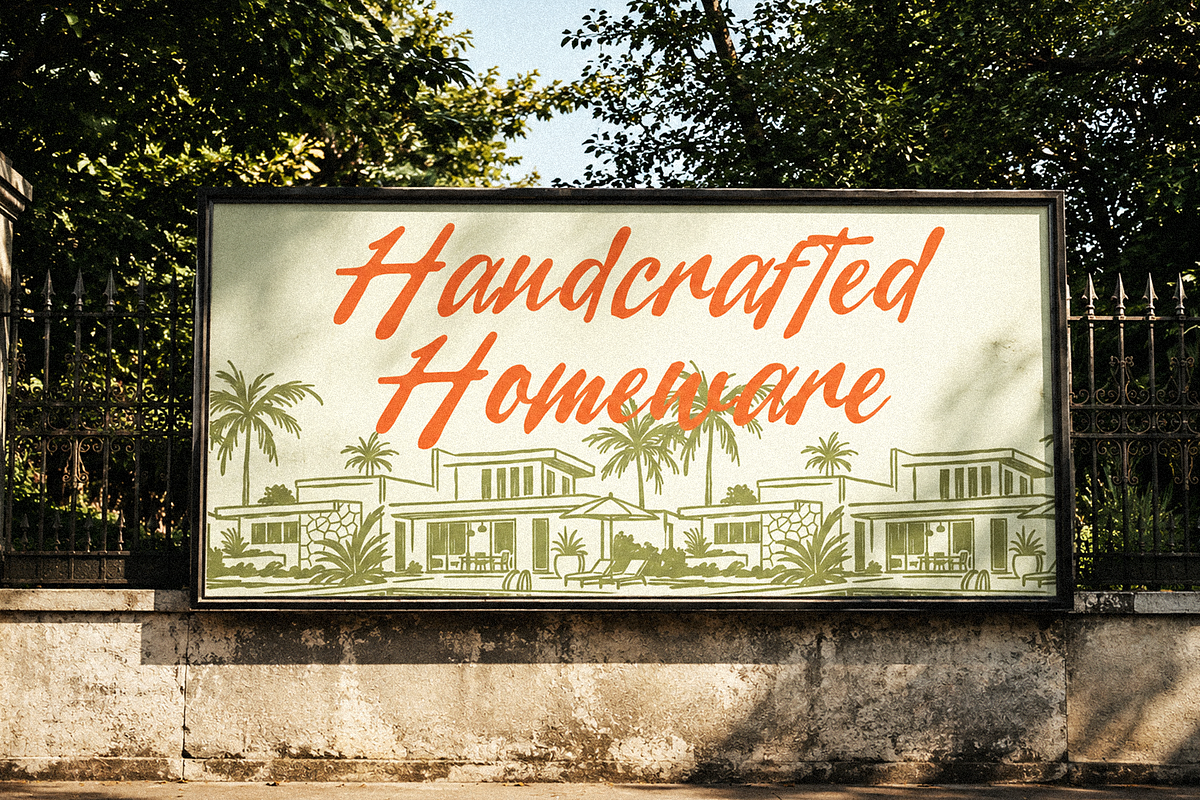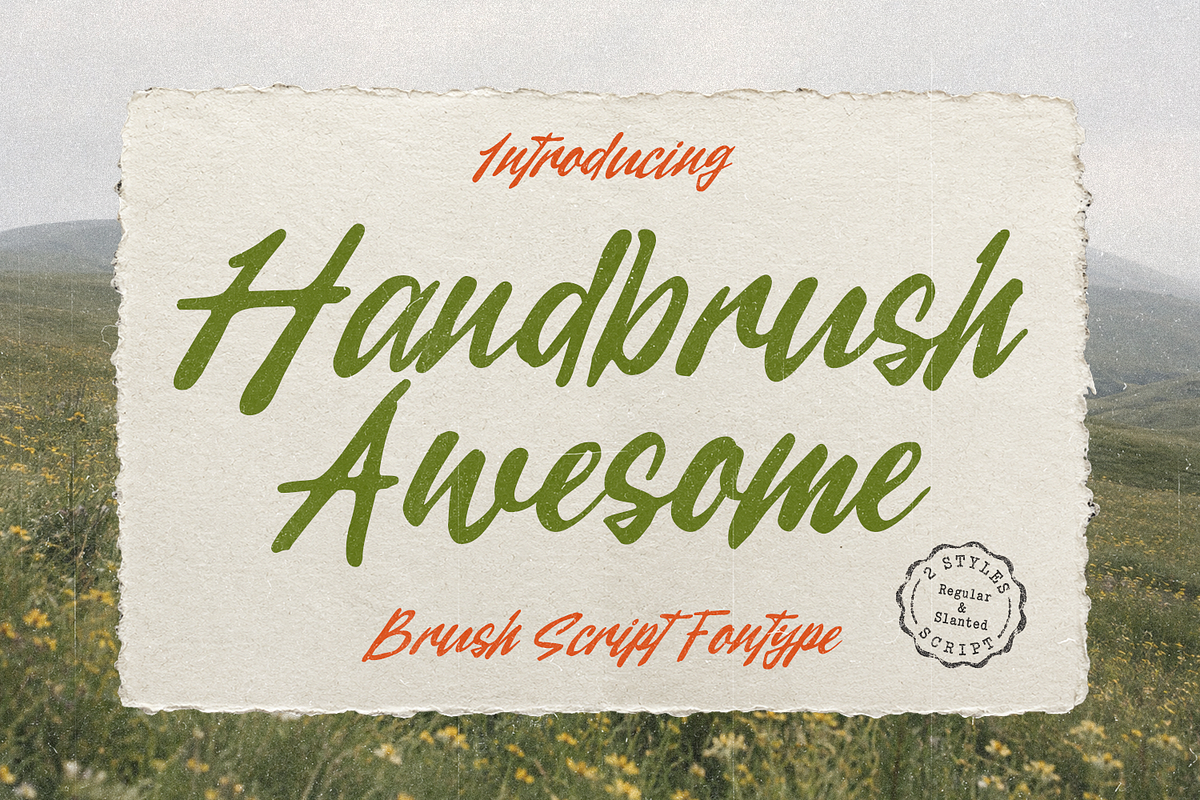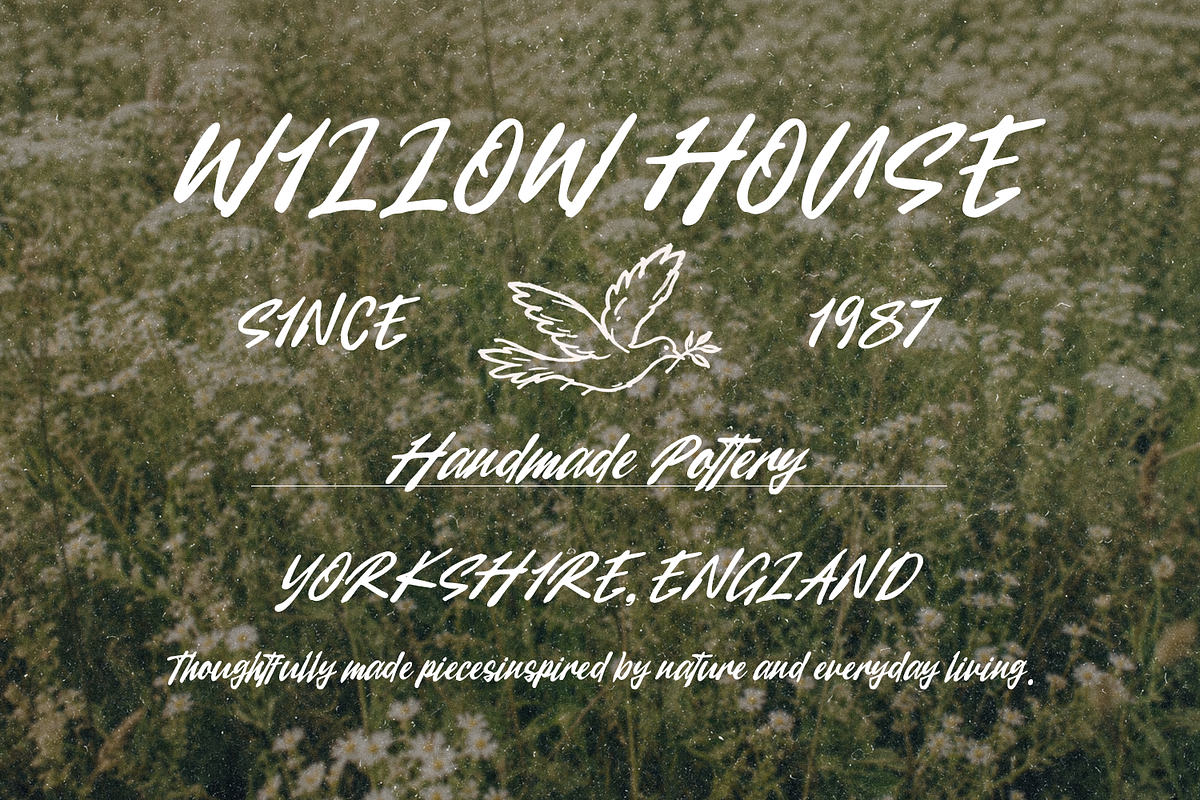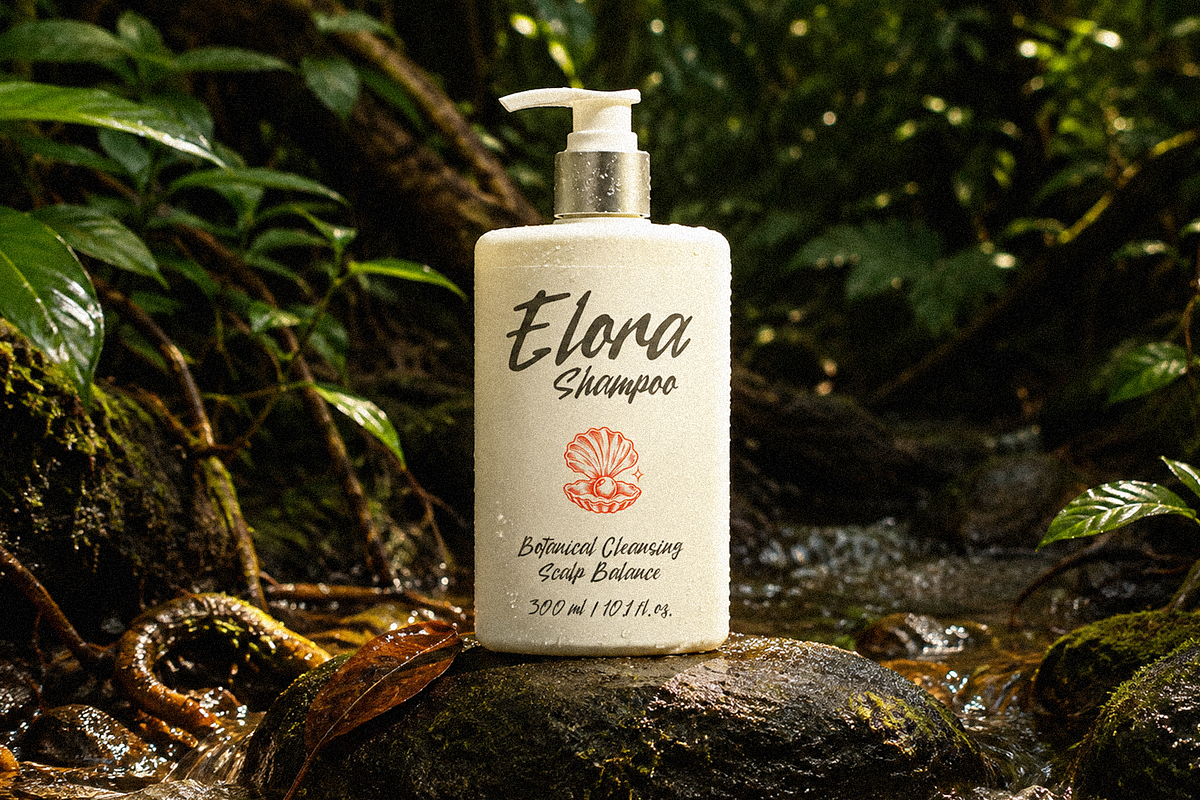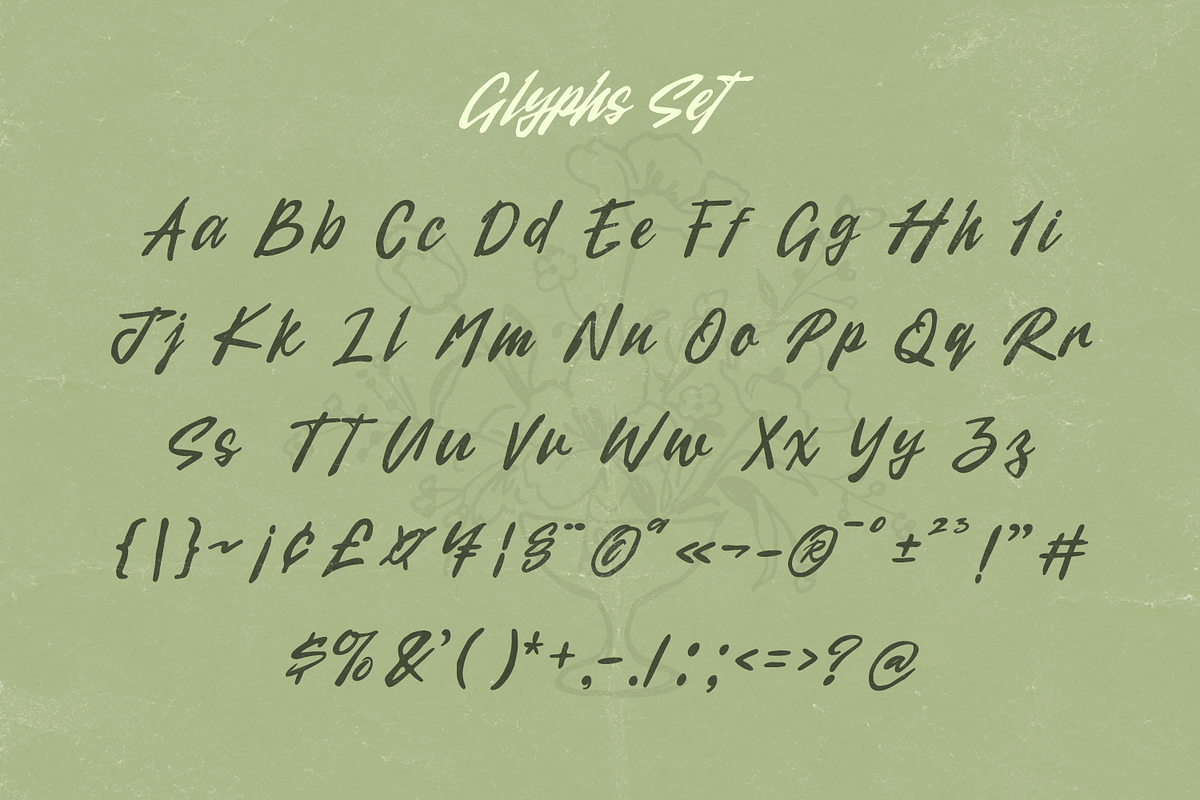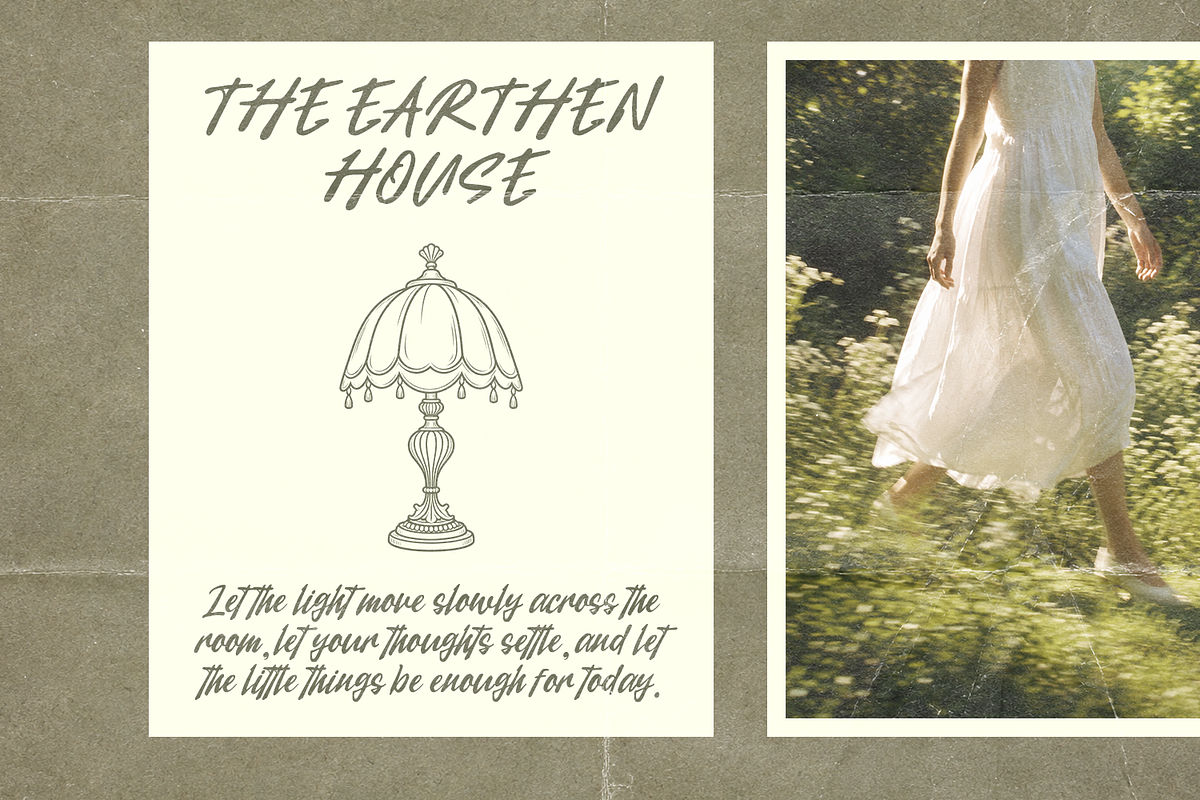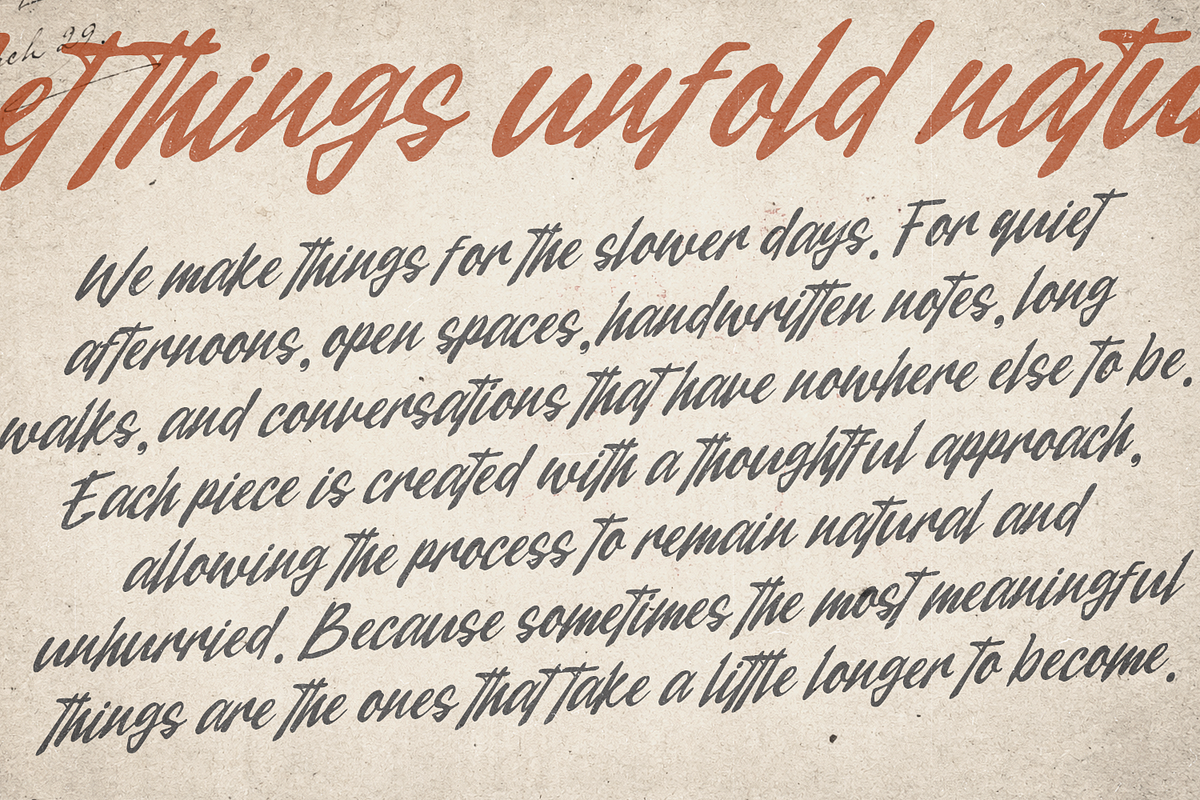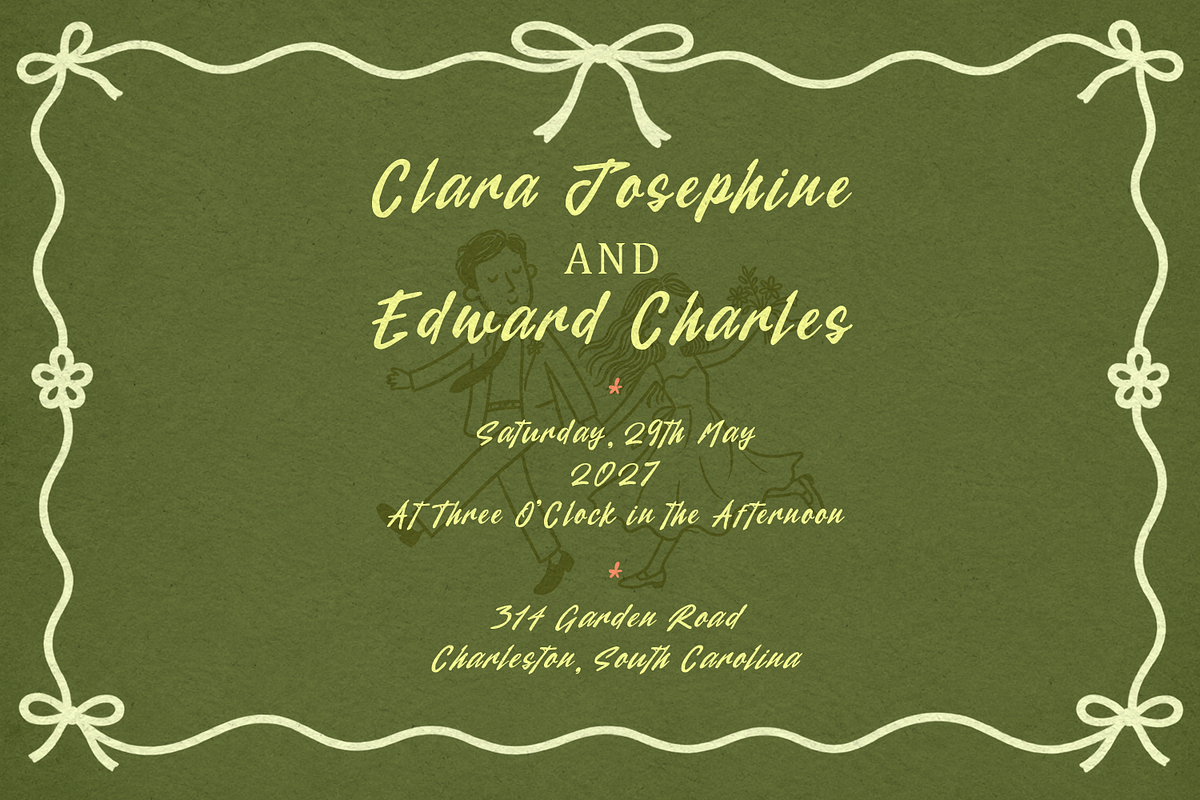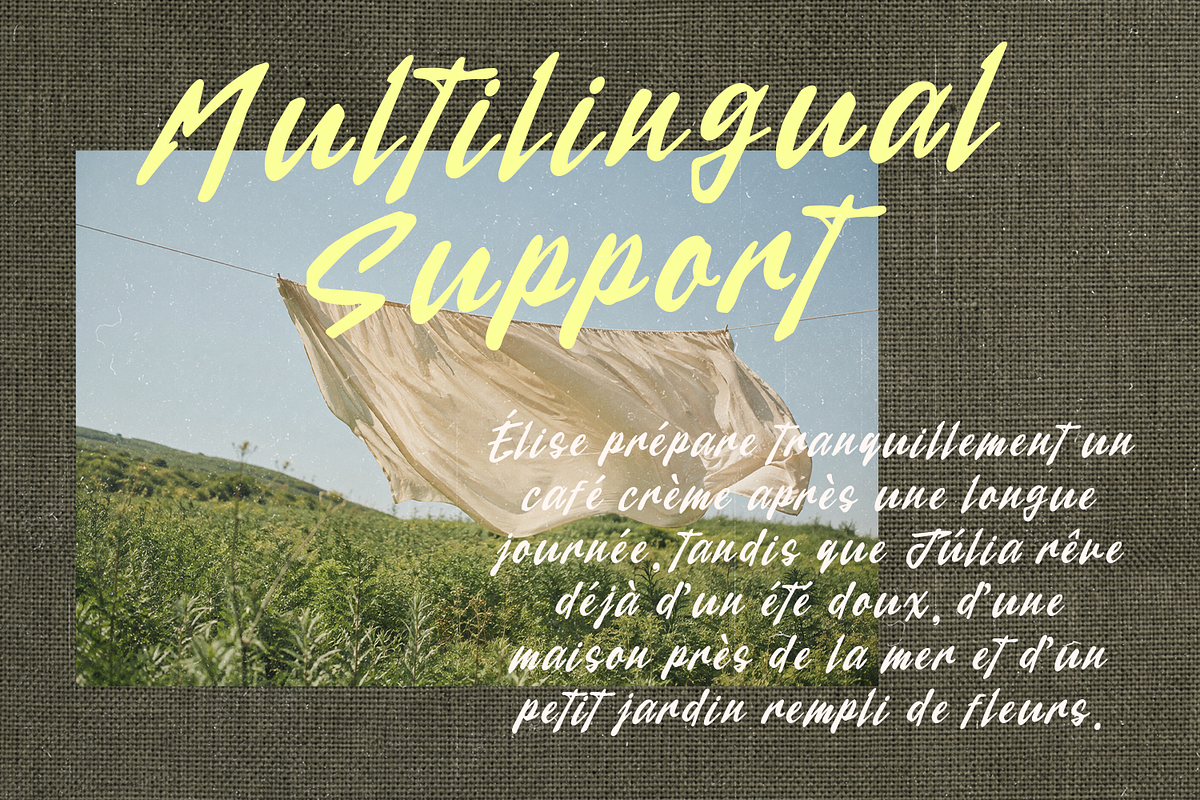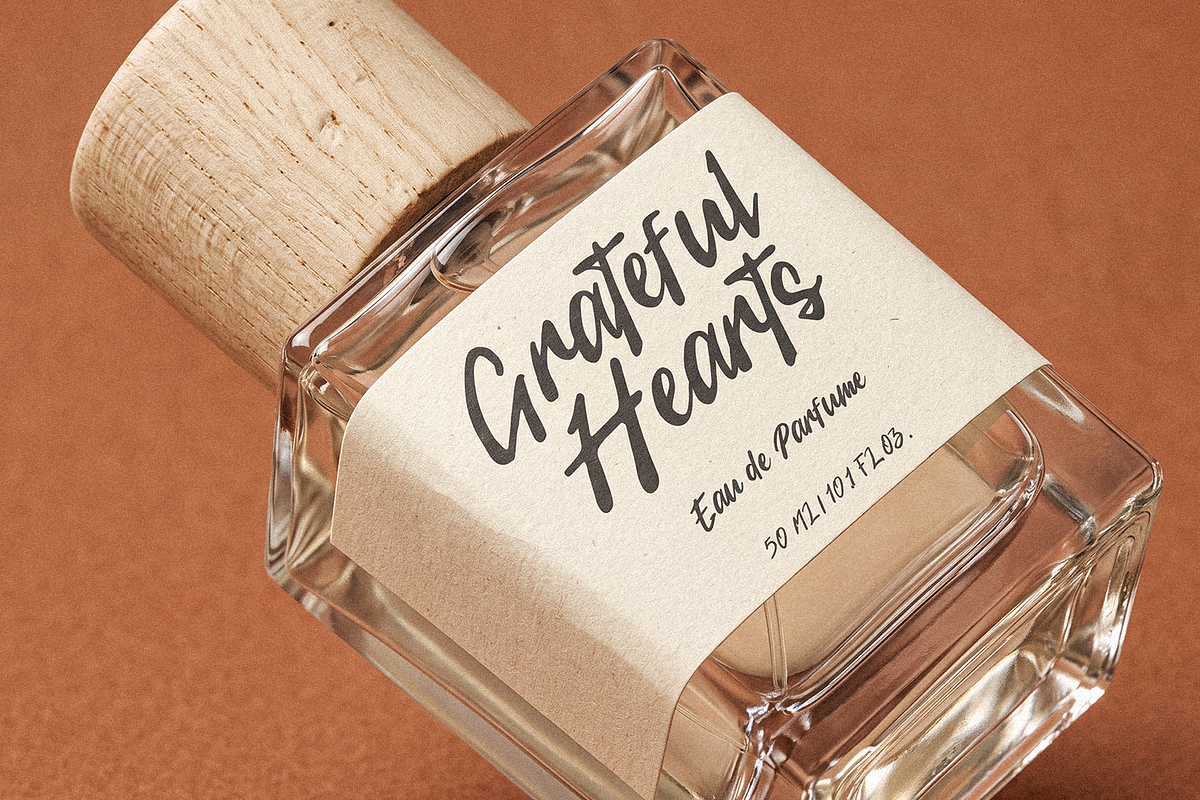
Handbrush Awesome Brush Script
Handbrush Awesome is an authentic, energetic brush script font designed to bring raw texture, natural handwritten movement, and bold personality to your creative projects. Featuring organic dry-brush strokes, fluid cursive connections, and two distinct styles (Regular & Slanted), this typeface captures a rustic, outdoor aesthetic that instantly stands out.
Crafted with high attention to detail, Handbrush Awesome is ideal for design layouts that require an adventurous, expressive, and hand-painted artistic touch.
2 Styles Included: Regular and Slanted versions for dynamic typography layouts.
Complete Character Set: Full set of Uppercase and Lowercase brush script letterforms.
Numbers & Punctuation: Complete set of numerals, standard symbols, and punctuation marks.
Natural Brush Texture: Authentic dry-stroke details for a real hand-painted effect.
Multilingual Support: Accented characters supporting various European and Latin-based languages.
Ideal Applications:
Outdoor & Adventure Branding: Logo designs, camping gear labels, travel merchandise, and rustic packaging.
Apparel & Streetwear: Bold graphic prints for t-shirts, hoodies, caps, tote bags, and jacket badges.
Event Flyers & Posters: Eye-catching titles for music festivals, sporting events, workshops, and retro signage.
Editorial & Quotes: Dynamic typography for magazine headers, book covers, motivational quote art, and photo overlays.
Social Media & Digital Art: Standout text for YouTube thumbnails, Instagram posts, Pinterest graphics, and blog banners.